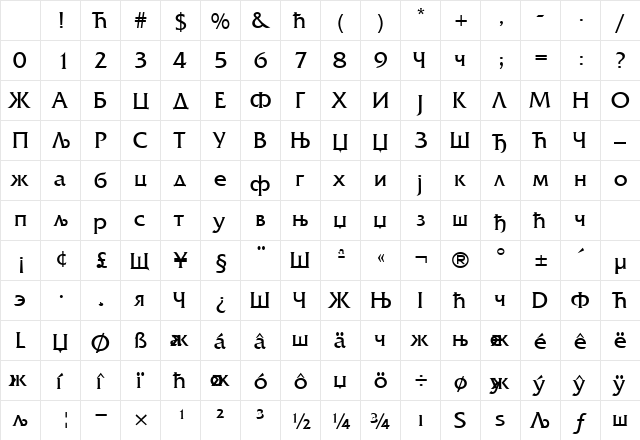
C_friz Regular Free Font
C_friz Regular
Design Context for C_friz
C_friz is a composed and adaptable typeface that performs quietly and consistently across a wide range of design contexts.